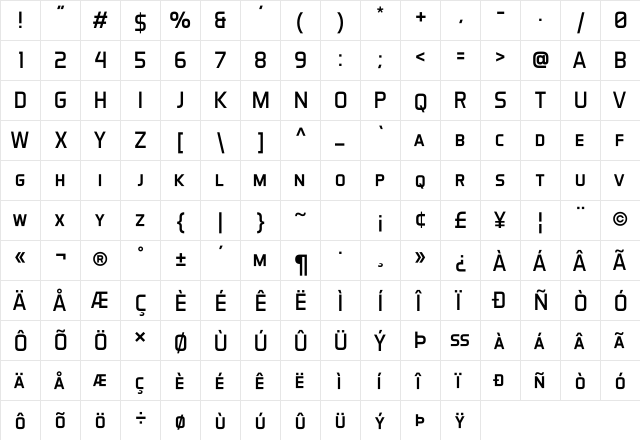
Aero Matics Display Regular
| Designer | Jayvee D. Enaguas (GrandChaos) |
Design Context for Aero Matics Display Typeface
Aero Matics Display is built around its visual character rather than neutral utility — its distinctive forms are designed to make an impression at display sizes.
Font Pairing: Pair with a clean neutral sans-serif for body copy to let Aero Matics Display's character lead without overwhelming the composition.
Pro Tip: Treat Aero Matics Display as the centrepiece of your typographic hierarchy. One strong heading set in a decorative face can carry an entire layout.